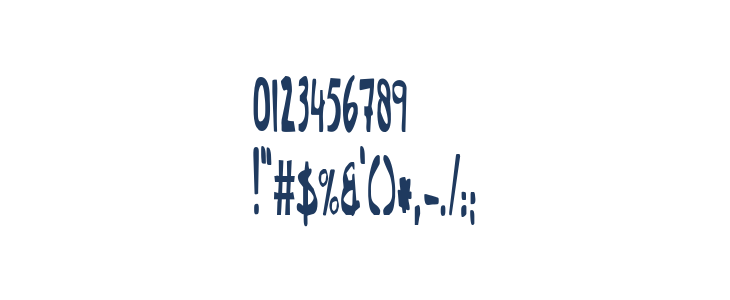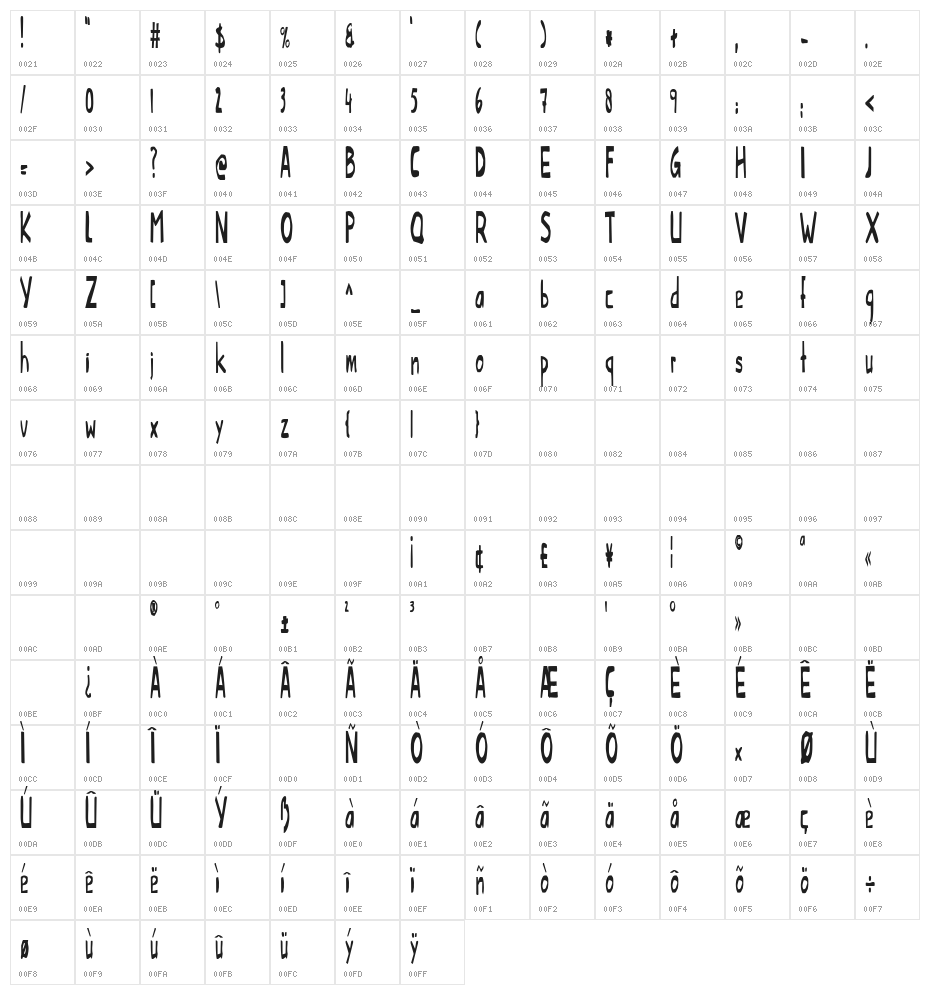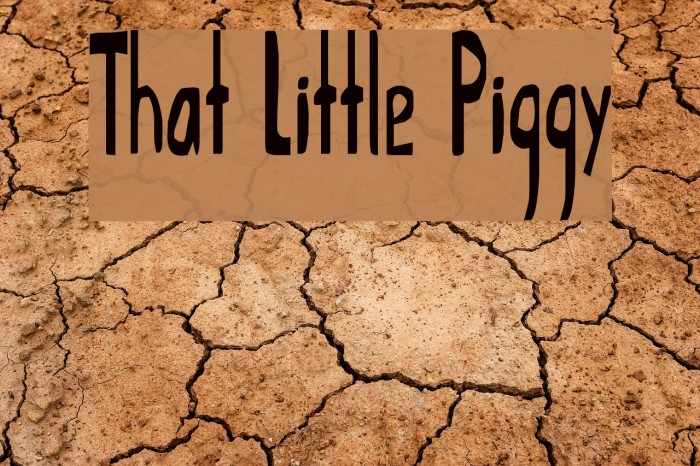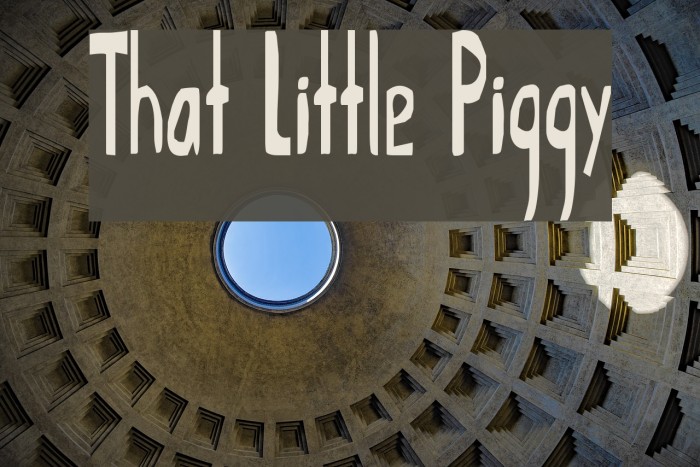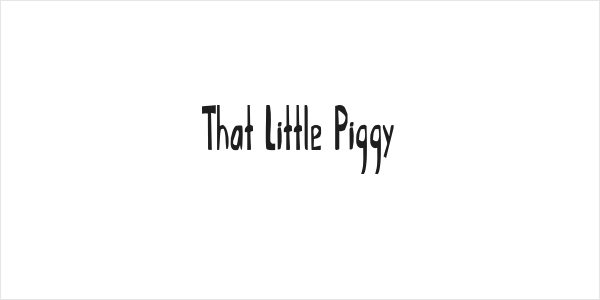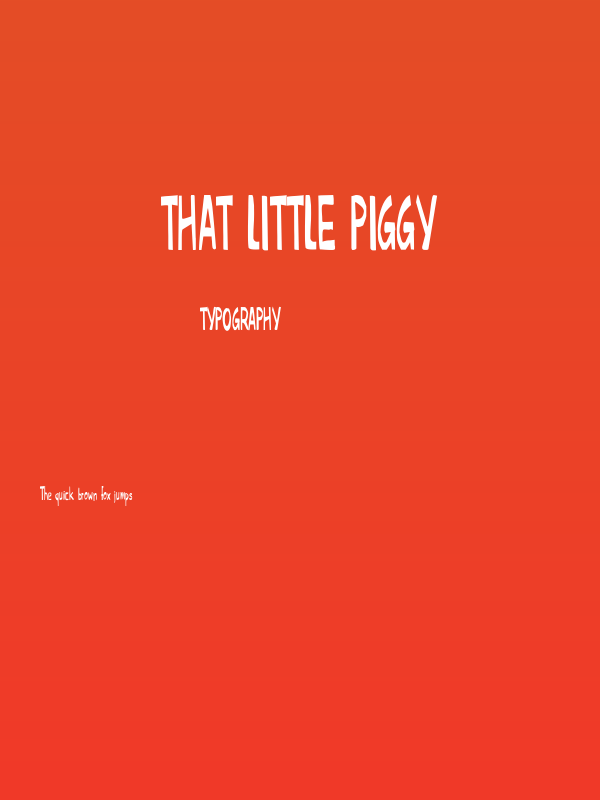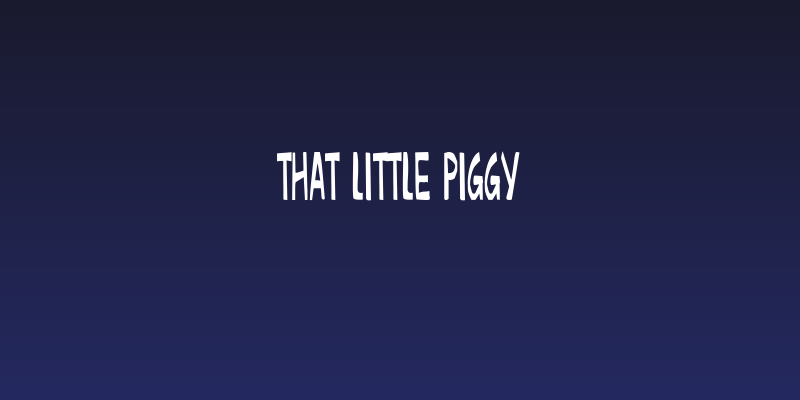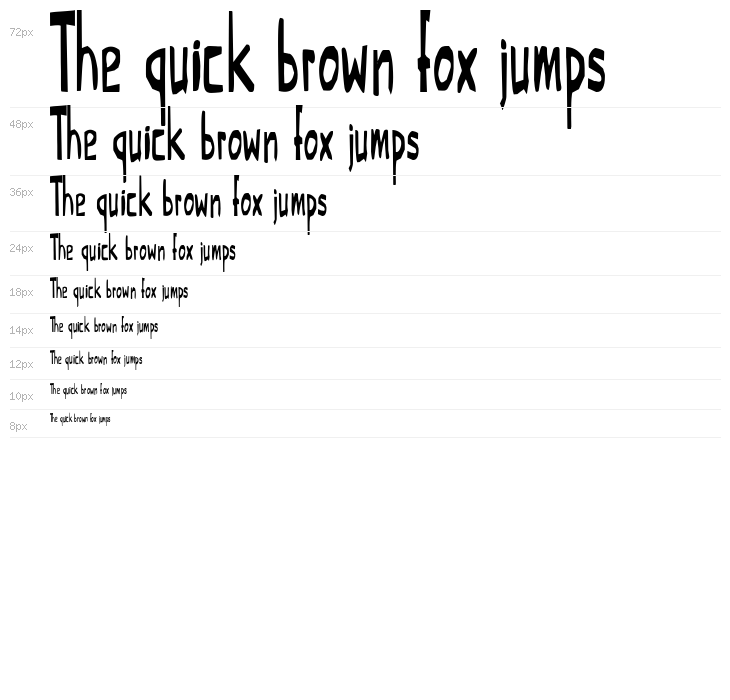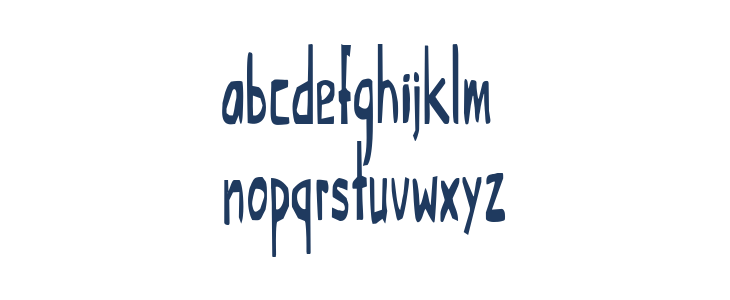
That Little Piggy Font
That Little Piggy Description
This font features a playful and whimsical design, characterized by its uneven and slightly irregular letterforms. The uppercase letters are tall and narrow, while the lowercase letters have a more relaxed and casual appearance. The numbers and special characters maintain the quirky style, adding to the overall charm. The strokes are bold and consistent, giving the font a strong presence. Its unique style makes it ideal for creative projects that require a fun and informal touch.